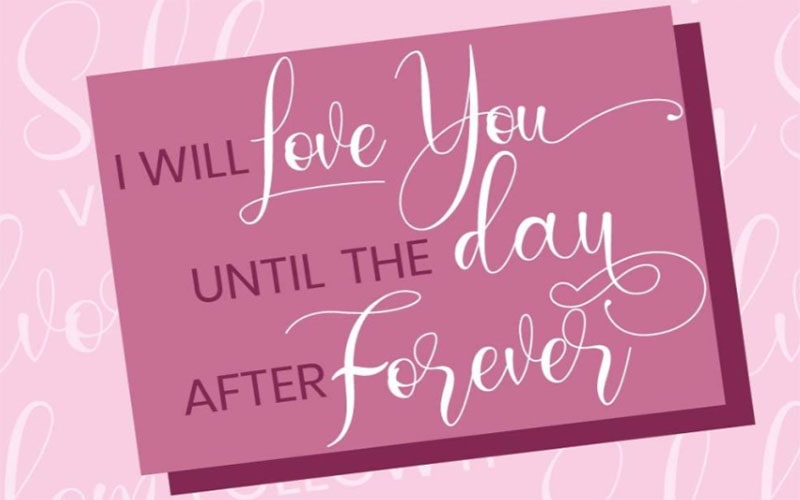
Loffers Font is a beautiful typeface that embodies the essence of elegance and modernity. The beautifully designed typeface was meticulously crafted by the renowned designer, Khaiuns.
Khaiuns is known for his ability to create typefaces that seamlessly blend traditional elegance with contemporary flair. His design philosophy revolves around enhancing readability.
while maintaining aesthetic appeal, and Loffers Font is a testament to this approach. It is available in several distinct styles that cater to a variety of design needs.
The core style features sleek and balanced letterforms, perfect for both body text and headings. A robust version that enhances visibility and impact, suitable for headlines and prominent text.
Loffers Font
| Font Name: | Loffers Font |
| Style: | Calligraphy, Script, Typeface |
| Font Designer: | Khaiuns |
Adds a graceful slant to the characters, ideal for emphasis and creating a dynamic typographic hierarchy. It combines the weight of the bold style with the elegance of italics, offering a unique and striking option.
This font is excellent for logos and corporate identity materials, conveying sophistication and professionalism, for flyers, brochures, and posters that need to capture attention and communicate clearly.